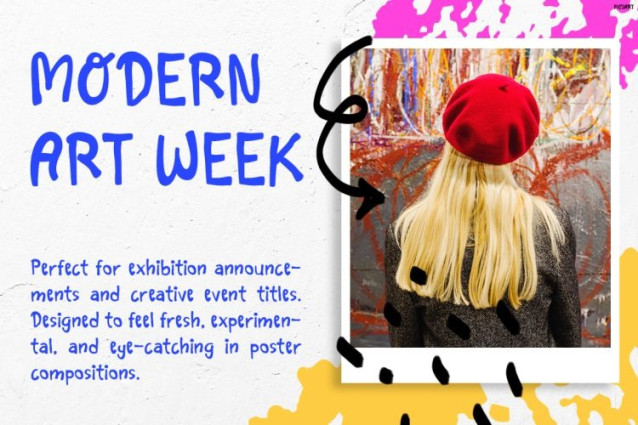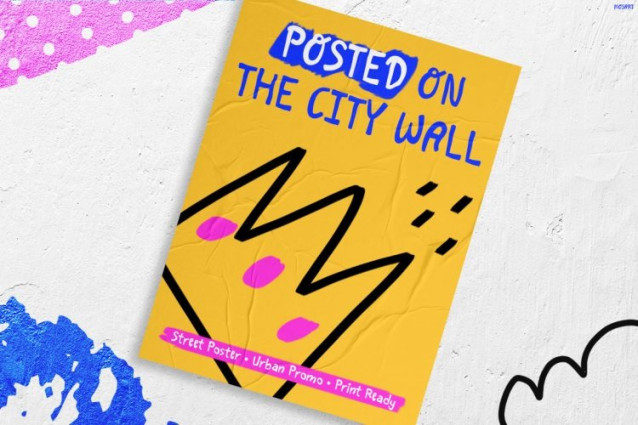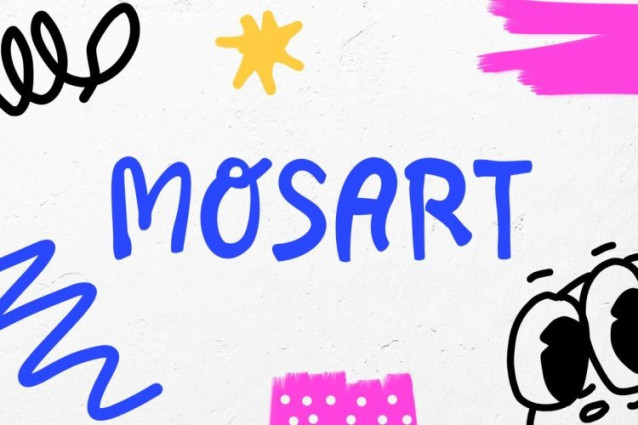
Mosart Font
Mosart Font is a bold and expressive handwritten display font inspired by street art, doodle culture, and playful urban creativity. Designed with energetic strokes, imperfect lines, and artistic graffiti-style details, this font instantly creates a fun and rebellious visual impact. Moreover, Mosart combines youthful energy with modern artistic aesthetics, making every design feel alive, dynamic, and impossible to ignore. Unlike ordinary kids fonts, Mosart delivers a strong urban personality while still maintaining readability and versatility. As a result, it works perfectly for projects that need a playful yet edgy appearance. In addition, the sketch-inspired details and spontaneous handwritten style give designs a raw creative vibe that feels authentic and visually engaging.
Why Kids Font Mosart Stands Out
Kids Font Mosart brings together street-inspired typography and cheerful creativity in one powerful typeface. Furthermore, the energetic letterforms help headlines look expressive, artistic, and highly eye-catching. Thanks to its playful graffiti appearance, this font creates a trendy and youthful atmosphere that feels modern and full of personality. At the same time, the clean structure keeps the text readable across different media and layouts. Besides that, Mosart includes uppercase, lowercase, numbers, and punctuation, so designers can create bold and flexible typography compositions with ease. Consequently, this font becomes an excellent choice for posters, branding, packaging, event campaigns, and social media content.
Perfect For Who?
Kids Font Mosart is ideal for graphic designers, content creators, illustrators, art communities, café brands, event organizers, and creative entrepreneurs who want bold visuals with artistic energy